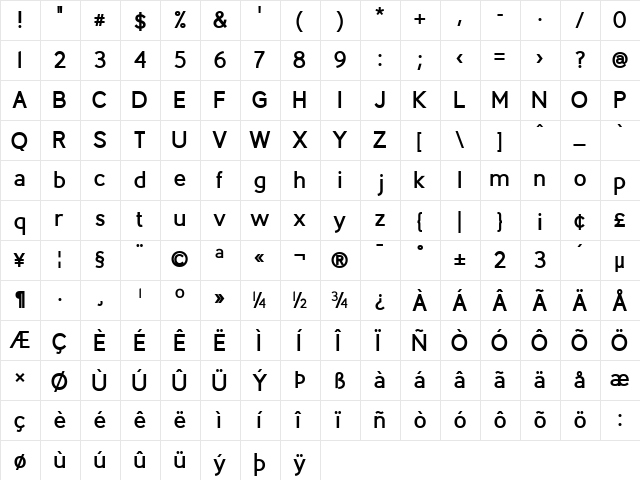
Berlin Bold Bold
| Foundry | Antonio Rodrigues Jr |
| Designer | Antonio Rodrigues Jr |
Design Context for Berlin Bold Typeface
Berlin Bold offers clean, dependable letterforms without strong stylistic allegiance, making it a practical choice for designers who need flexibility. The heavy weight commands attention and anchors typographic hierarchies.
Pro Tip: Pair Berlin Bold with a font of contrasting weight or personality to build a more expressive typographic hierarchy.